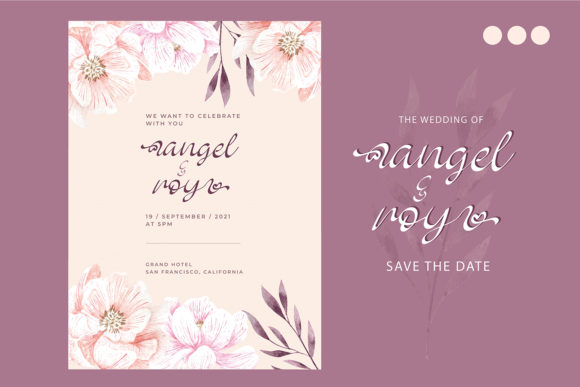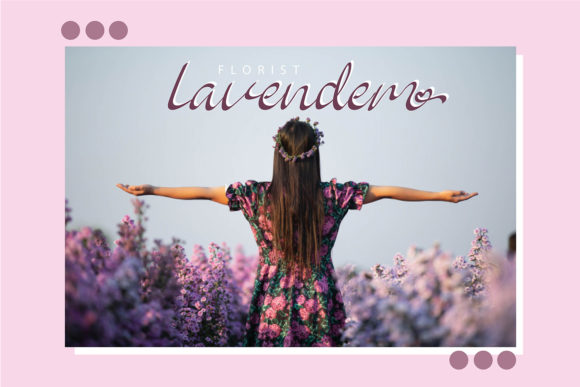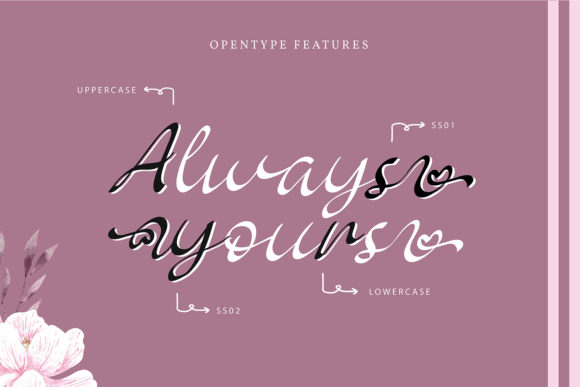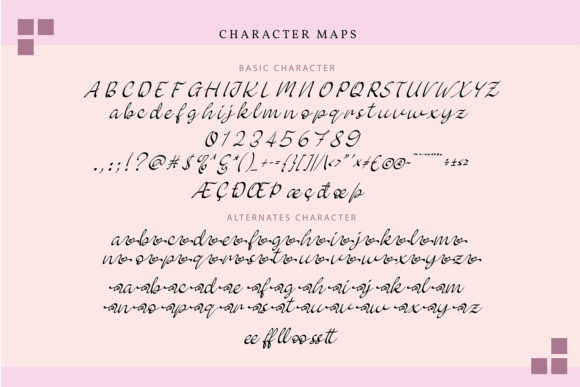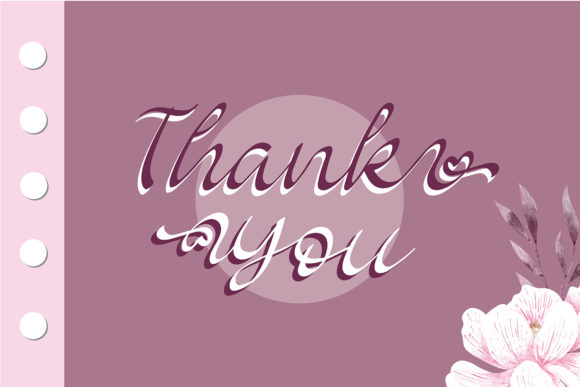
The Foxlove Font: A Romantic Cursive Script for Your Creative Projects
Have you ever been in the middle of a design project, pouring your heart and soul into it, only to hit a roadblock when it comes to choosing the perfect font? I certainly have! Recently, I was working on a wedding invitation design for a client, and I just couldn’t seem to find the right font to capture the romantic and elegant feel they were looking for. That’s when I stumbled upon the Foxlove font, and let me tell you, it was love at first sight! 💕
A Personal Review of Foxlove Font
As a designer, I’m always on the lookout for fonts that are not only beautiful but also versatile and easy to use. The Foxlove font checks all those boxes and more! Here’s what I love about it:
- ✨ Romantic and elegant feel: The Foxlove font has a beautiful, cursive script style that’s perfect for creating romantic and elegant designs.
- ✅ PUA encoded: This font is PUA encoded, which means you can access all the glyphs and swashes with ease, making it super versatile and customizable.
- 🎉 Wide range of uses: From wedding invitations and thank you cards to logos and greeting cards, the Foxlove font can be used for a variety of design projects.
Of course, no font is perfect, and there are a few small quirks to be aware of:
- 🤔 Some swashes may not work well in all design programs: While the Foxlove font is PUA encoded, some swashes may not work seamlessly in all design programs, so be sure to test them out before finalizing your design.
- ⚠️ May require some manual kerning: As with any script font, some manual kerning may be required to get the letters spacing just right.
The Story Behind Foxlove Font
The Foxlove font was designed by a talented font designer who was inspired by the beauty of handwritten scripts. With a passion for typography and a keen eye for detail, the designer created the Foxlove font to be a versatile and elegant script font that’s perfect for a wide range of design projects.
- Q: What is the Foxlove font?
- A: The Foxlove font is a cursive and romantic handwritten font that’s perfect for creating elegant and sophisticated designs.
- Q: Is the Foxlove font PUA encoded?
- A: Yes, the Foxlove font is PUA encoded, which means you can access all the glyphs and swashes with ease.